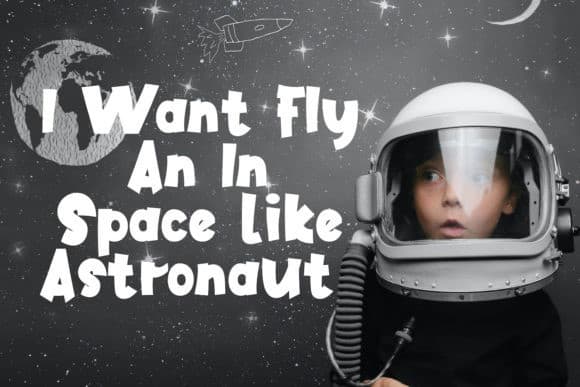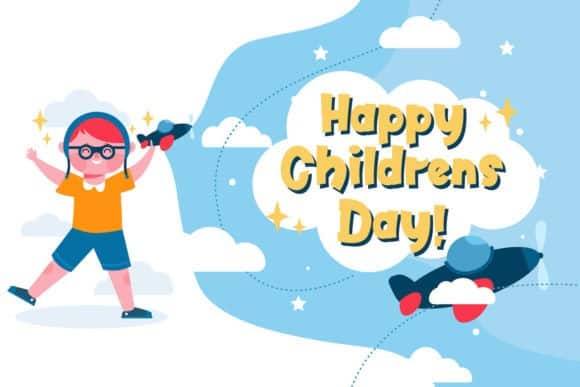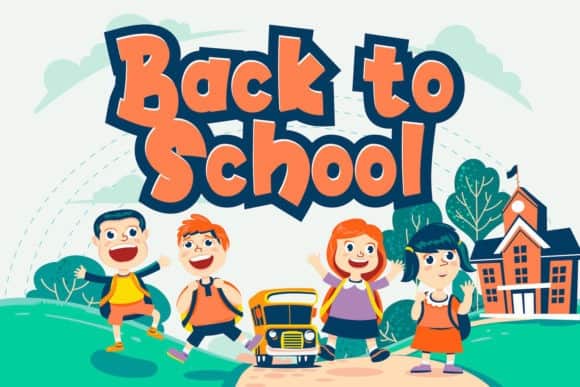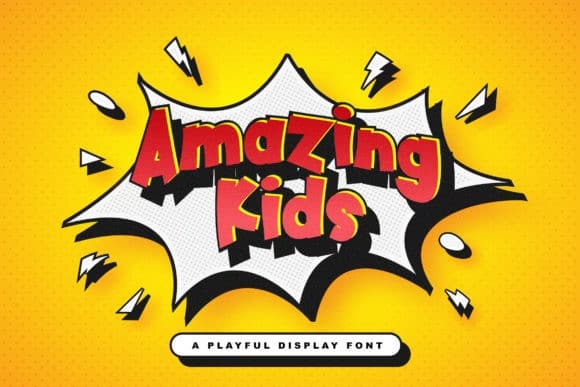
Amazing Kids Display Font is a bold display font, this font looks funny, cute, kids, cartoon, playful, catchy and easy to use. It will add an incredibly joyful touch to your designs. Add this beautiful display font to each of your creative ideas and notice how it makes them stand out!